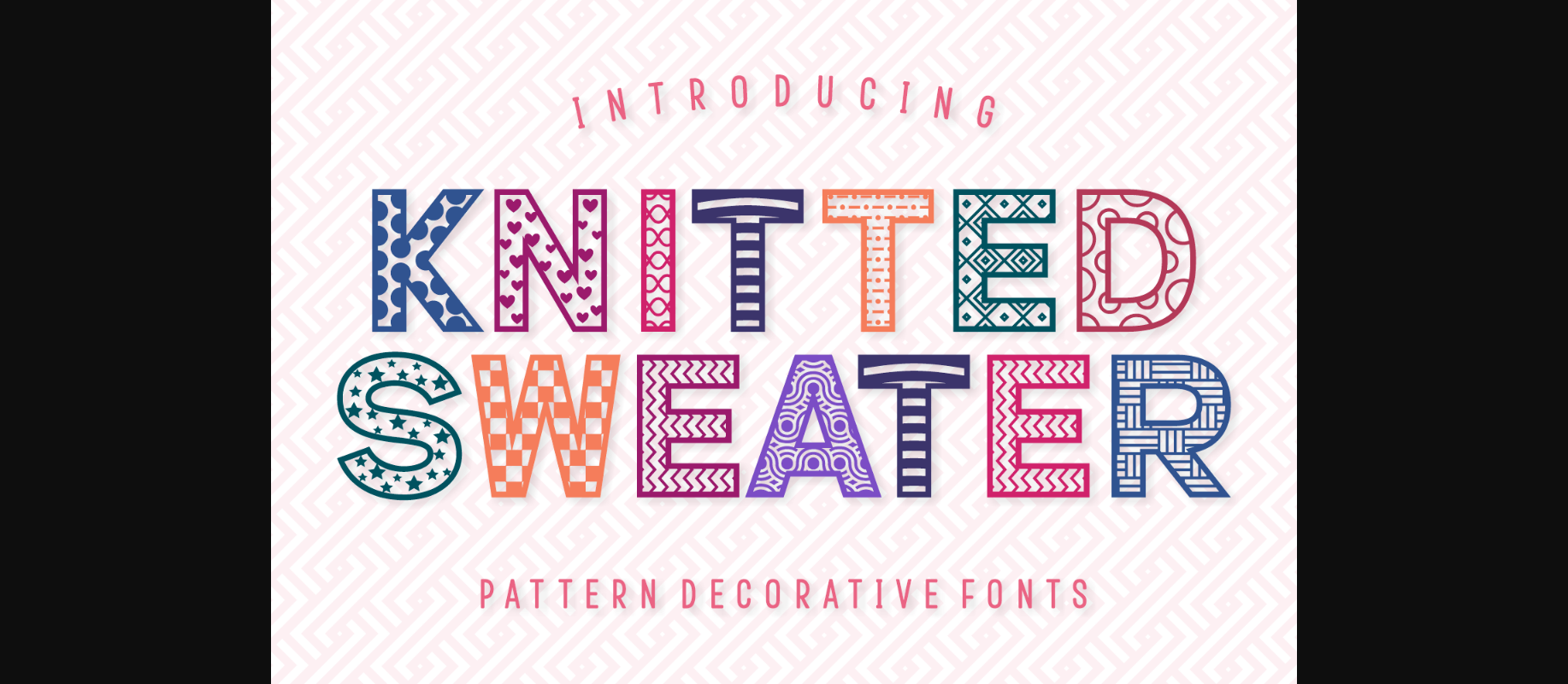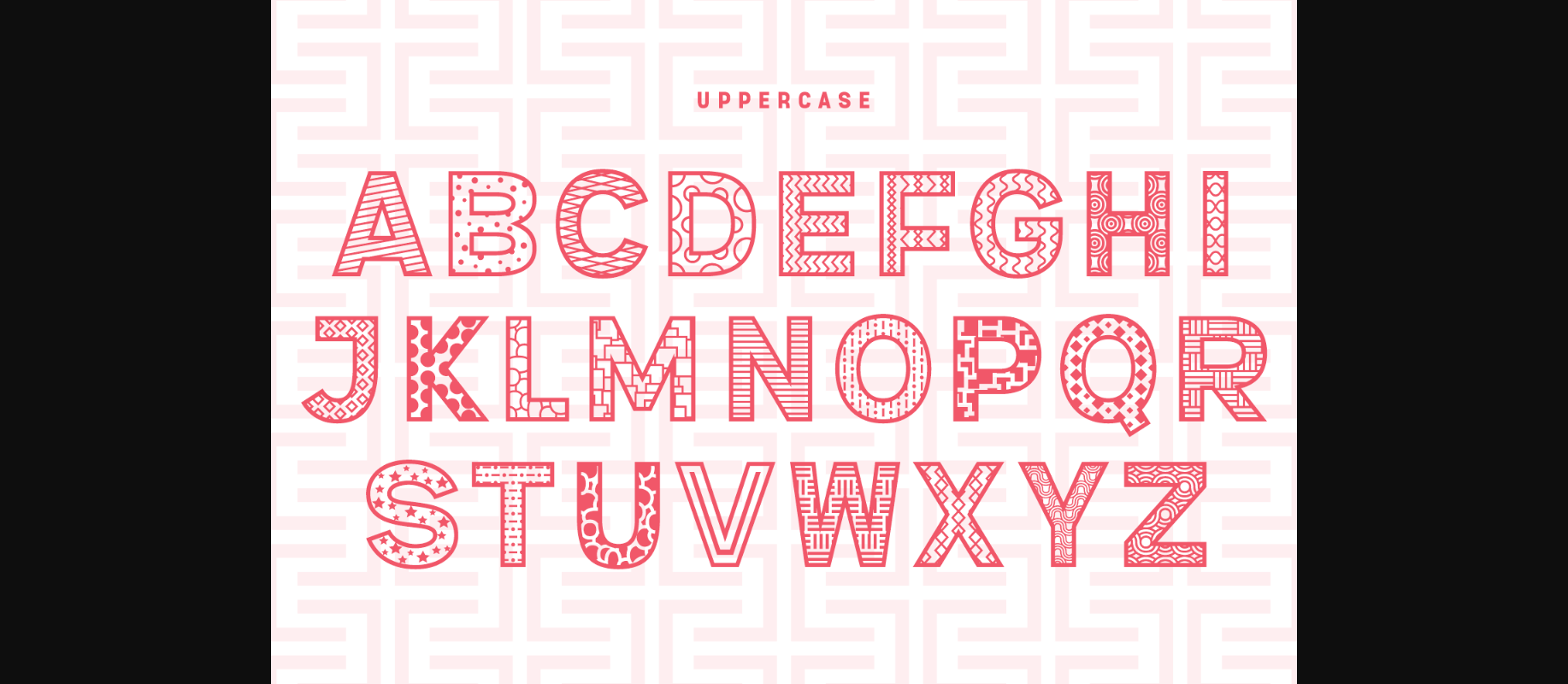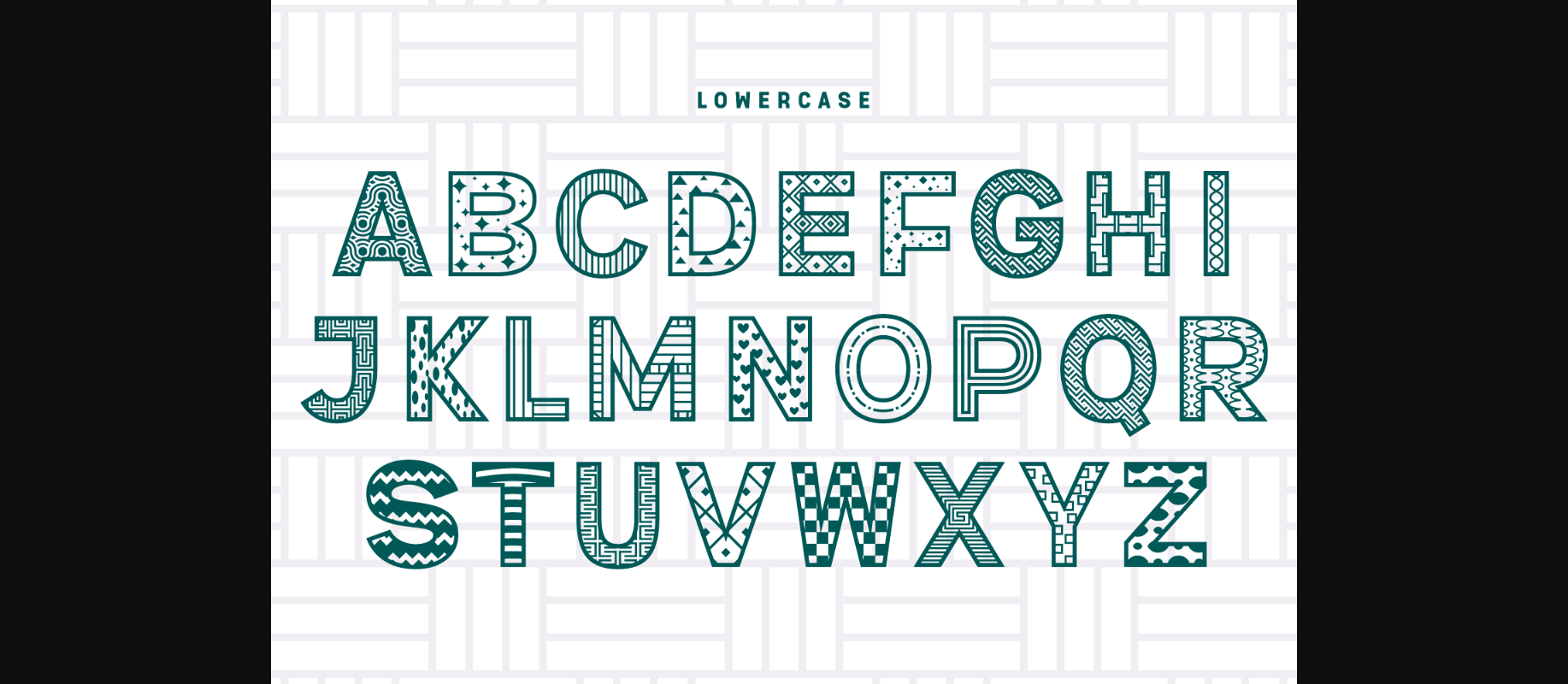
About Knitted Sweater Font
Want to add some cheer and pizzazz to your winter designs? The decorative font Knitted Sweater is here to make your crafts more festive and ready to impress your audience!